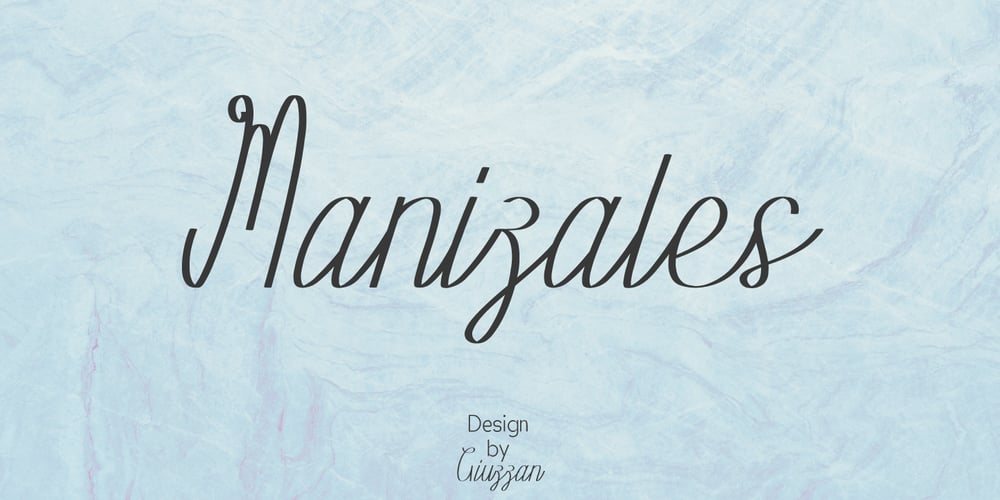
Manizales Font Family was designed by Muhamad Fauzan and published by Giuzzan. Manizales contains 1 styles and family package options. Manizales is a captivating handwritten script font that exudes charm and creativity. Its dynamic letterforms and artistic energy add a playful and unique touch to any design project.